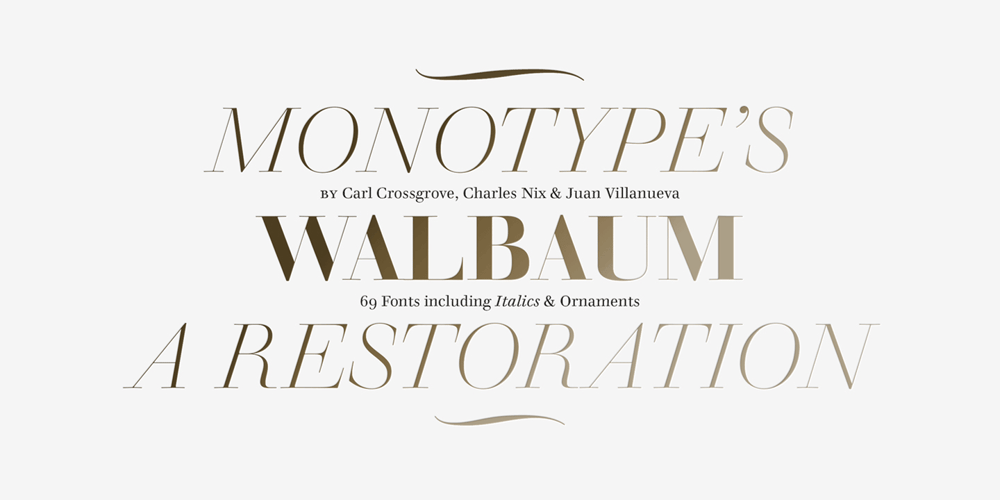
Walbaum
Walbaum font
Walbaum Font Family was designed by Carl Crossgrove, Charles Nix, Justus Erich Walbaum, Juan Villanueva, Lynne Yun and published by Monotype. Walbaum contains 69 styles and family package options. First designed in the early 1800s, Walbaum never achieved the audience or acclaim it deserved – despite its easy elegance, and sophisticated persona. It’s been fully restored for this expansive family, which includes 32 weights including ornaments and two decorative cuts. Walbaum offers the kind of warmth that’s missing from comparable typefaces such as Bodoni or Didot, feeling effortlessly approachable and legible. Monotype team Carl Crossgrove, Charles Nix and Juan Villanueva have adhered to designer Justus Erich Walbaum’s original intentions, also incorporating work by the designer’s son into some of its more extreme display weights – pushing the possibilities of Walbaum without compromising on its spirit. Text weights work well for the demands of digital environments, while decorative and display weights offer more dramatic, sculptural forms. Unusually, the family also includes a generous range of ornaments. From massive billboards, to micro-type on e-readers, Walbaum has it covered. The family is available as OpenType OTF font format, and includes over 600 glyphs with OpenType typographic features including small capitals, old style and lining figures, proportional and tabular figures, fractions and ligatures.Featured in: Best Fonts for Logos, Best Fonts for Business Cards